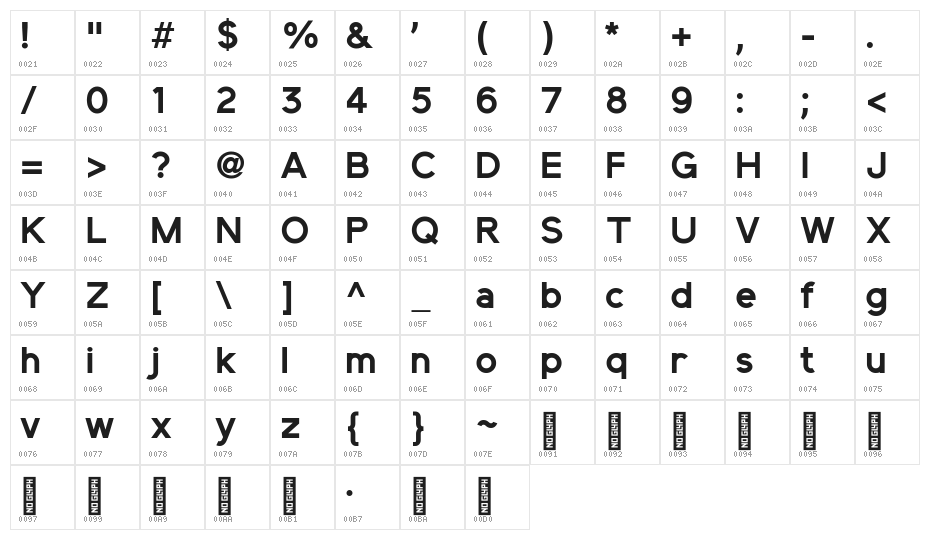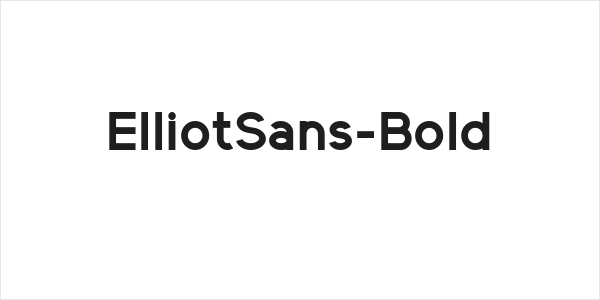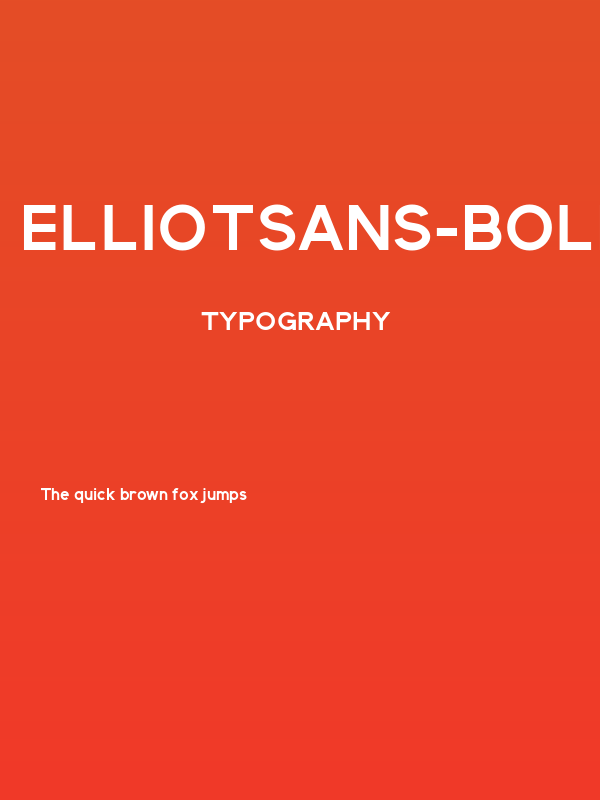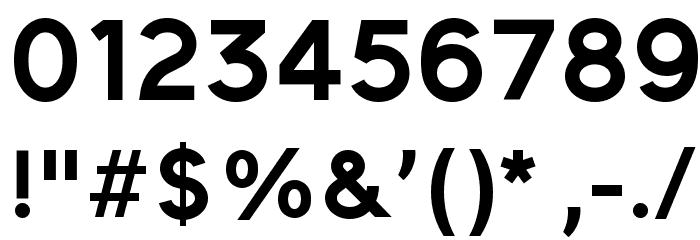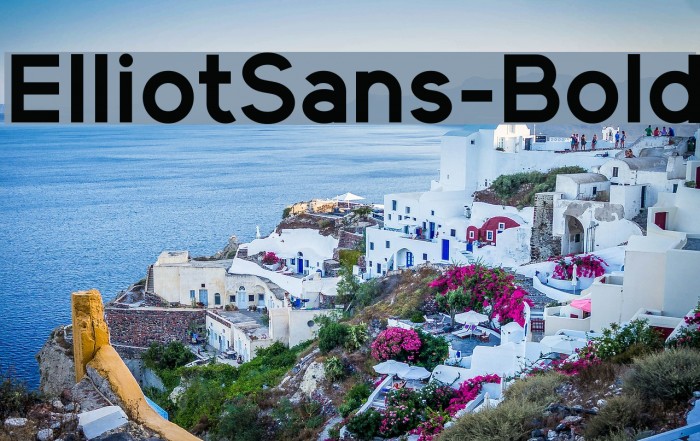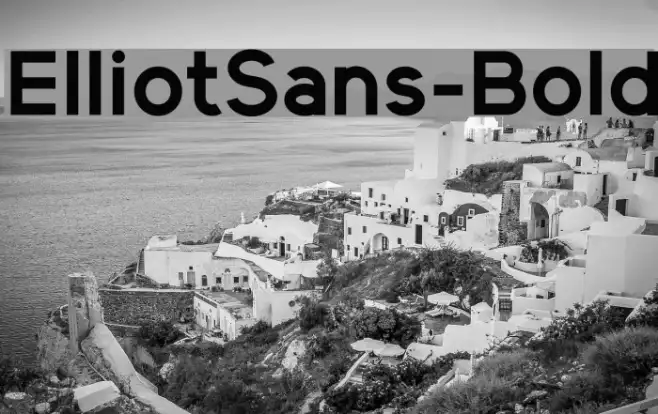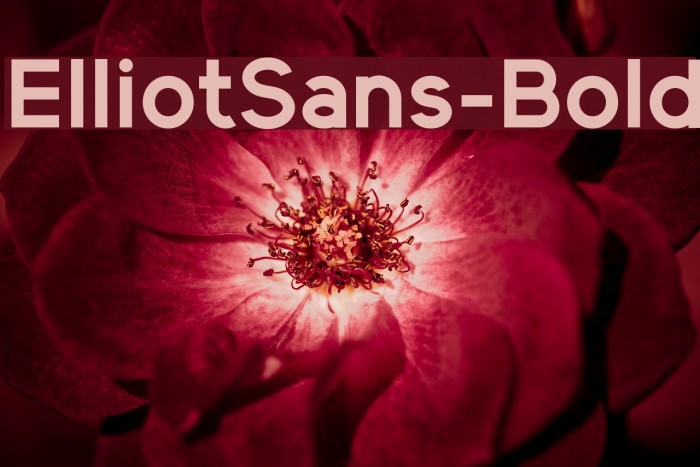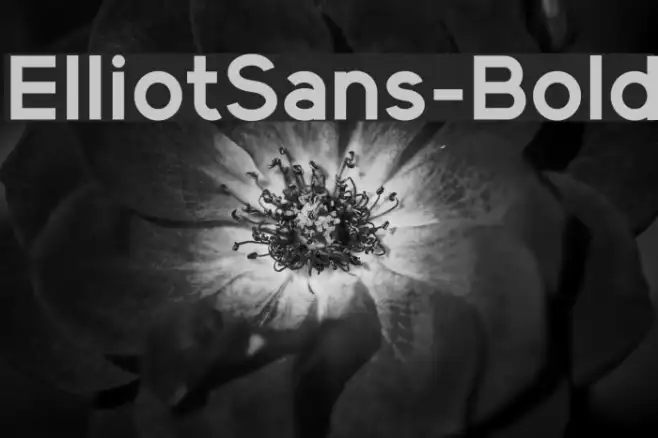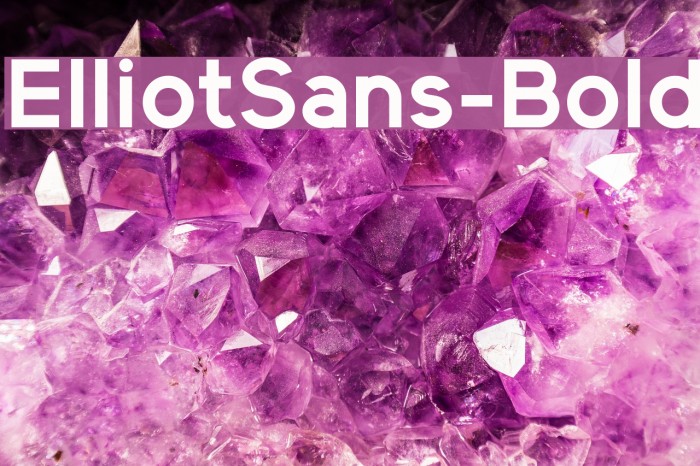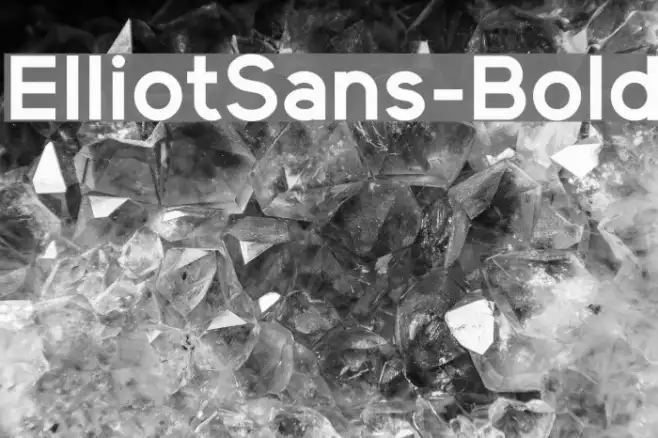
ElliotSans-Bold Font
ElliotSans-Bold Description
This font exhibits a clean and modern sans-serif style, characterized by its bold weight and geometric shapes. The uppercase and lowercase letters are well-proportioned, with a consistent stroke width that provides a strong visual impact. The numerals are clear and easily distinguishable, making them suitable for various applications. The special characters are designed with the same attention to detail, ensuring uniformity across the entire typeface. Its simplicity and clarity make it highly legible, even at smaller sizes, while the boldness adds emphasis and presence.
| Use Case | Headlines, Logos, Digital Interfaces |
| Proposed Projects | Ideal for branding, headlines, posters, and digital interfaces where clarity and impact are essential. |